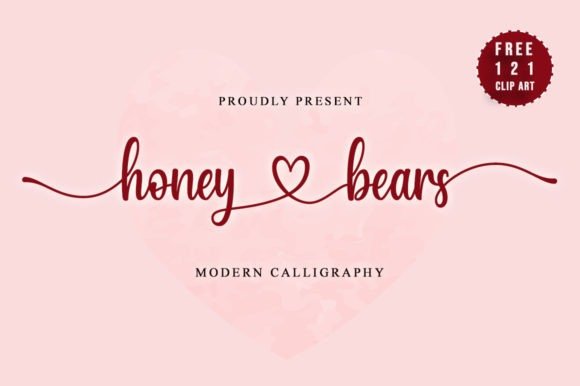
Honey Bears Font
Honey Bears Calligraphy Font is one of the modern calligraphy script fonts that comes with a beautiful style that connects the heart, designed with high detail to present a luxurious style. It looks lovely on invitations, thank you cards, quotes, greeting cards, logos, business cards and every other design which needs a romantic touch. This font is PUA encoded which means you can access all of the glyphs and swashes with ease!